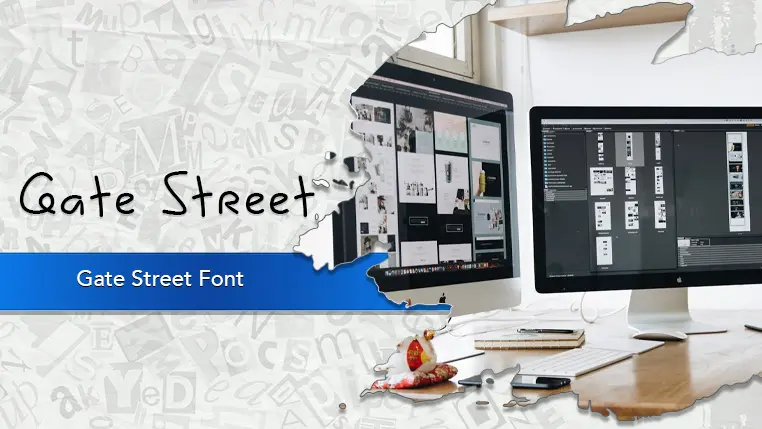
The Gate Street font family may be ideal for you if you enjoy working on an artistic design project. The lively, expressive look of this typeface, which was created by Studio 14, makes it ideal for Company logos, especially for modern, clean, or approachable brands, use on Corporate websites and basic branding materials. Website body text, headers, and navigation. Digital dashboards and online forms. Magazines, newspapers, and newsletters. Clear and impactful headlines and body copy for advertisements, banners, and promotional materials. and other light-hearted visual projects.
Regular are the one primary font styles of the Gate Street font family. You may build dynamic, visually appealing text layouts with the distinct flair that each style offers. With crisp, readable lines and a relaxed tone.